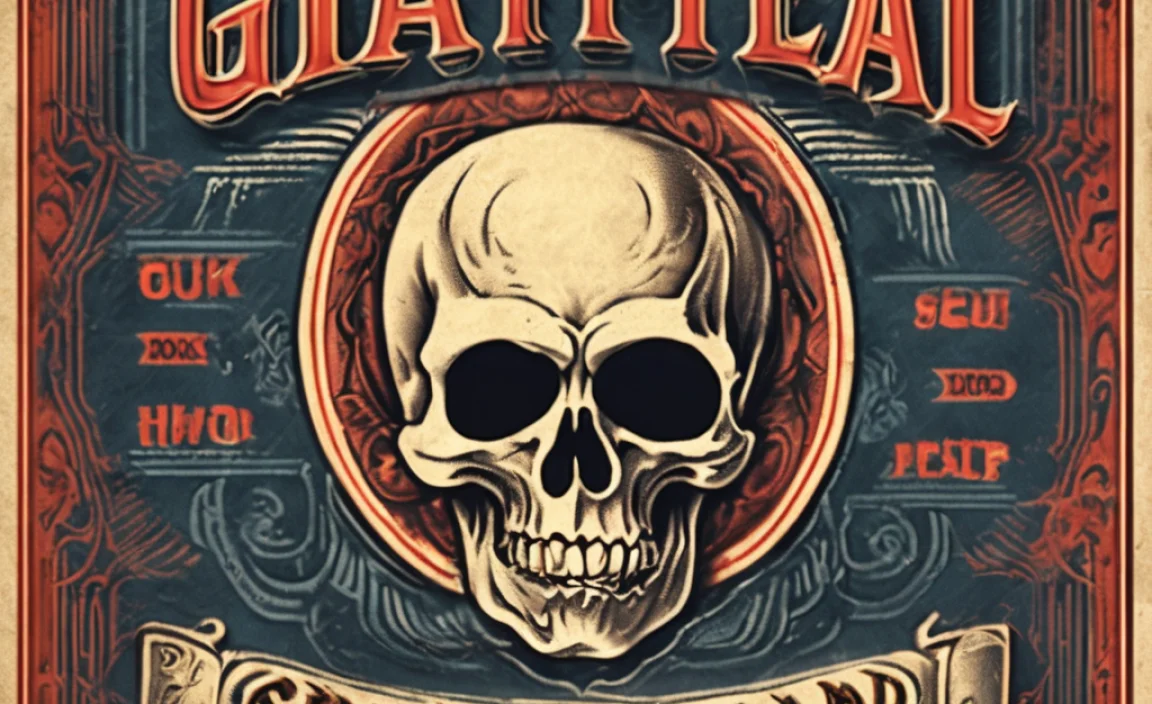
The Grateful Dead is a legendary band with loyal fans. They are known for their wild style, mixed music, and famous album covers. Their bold lettering has inspired designers for years. One designer, Reynaldo Ruelas, has helped create fonts that bring back their classic look.
Something about that old-school style takes you back in time. You can almost see the tie-dye shirts and hear the music. Many font makers, like Iconian Fonts and Glyphobet Font Foundry, have made typefaces based on the band’s vibe. Their work keeps the spirit of the Grateful Dead alive in design.
The Story Behind Grateful Dead Fonts
The Grateful Dead, a band with a cult-like following, left behind more than just music. Their unique look, from album art to concert posters, defined the psychedelic era. This was more than just lettering, it was part of the band’s artistic vision. Over time, designers have worked hard to recreate and update these famous fonts.
Reynaldo Ruelas, a well-known designer, has made fonts that capture the band’s classic style. Foundries like Iconian Fonts and Glyphobet Font Foundry have created stunning typefaces inspired by the Grateful Dead’s signature look. These fonts help fans and designers bring the band’s energy into today’s projects.
Popular Grateful Dead Font Styles
The Grateful Dead fonts bring a nostalgic ambiance to designs, perfect for posters, album covers, and creative branding. Below are some of the most well-known fonts associated with the band’s style:
Instant Zen – A decorative font by Iconian Fonts, capturing the psychedelic essence.
Ripple – Designed by Glyphobet Font Foundry, mirroring the band’s free-spirited energy.
Storybook Font – A gothic font with a vintage touch, perfect for handwritten authenticity.
Harbinger Font – A horror font with condensed features, adding an edgy appeal.
Typewriter Font – A serif font inspired by classic album covers and penned lyrics.
Sans Serif Modern Font – A sleek, structured typeface offering a fresh take on vintage styles.
Designers use Grateful Dead fonts for branding because they bring a sense of nostalgia, artistic style, and counterculture. These fonts are linked to the band’s psychedelic rock era, making them perfect for brands that want a vintage look, free spirit, and musical history.
From an emotional branding view, these fonts connect with people who love bohemian, retro, and underground styles. They take viewers back to the 1960s and 70s, a time known for creative rebellion and unique designs.
Why These Fonts Evoke Nostalgia
Grateful Dead fonts don’t just replicate a style; they capture an entire era.It’s a mix of vintage handwriting, authentic script, and Gothic font. It influences what gives designs a candid, personal feel.
From a design point of view, each font has its own visual traits that match different brand styles. Brands in music, fashion, craft beer, skate culture, and event promotion can use these fonts to stand out. They help create a unique, artistic, and emotional brand identity. Whether on logos, album covers, posters, or packaging. Grateful Dead fonts strengthen a brand’s link to heritage, creativity, and artistic freedom.
Whether you’re crafting a logo font, album cover, or poster, these fonts reflect the spirit of the 1960s and ’70s counterculture.
Pairing Fonts For A Unique Design
Choosing the right font is just the first step. To make your designs pop, you should pair your Grateful Dead-inspired font with complementary typefaces. Here are a few suggestions:
Try pairing with sans serif, condensed, or script fonts for a balanced look.
How Can I Achieve A Handwritten Feel In My Designs?
Use fonts like Typewriter Font, Storybook Font, and Gothic Font for an authentic touch.
What Cultural Influences Shaped These Fonts?
They reflect psychedelic rock, vintage typography, and even references to Hindu God Vishnu in artistic themes.